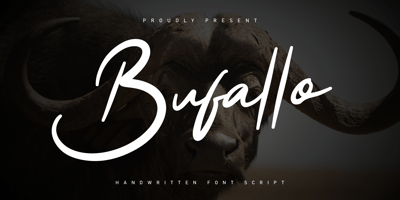
Bufallo
Bufallo font
Bufallo Font Family was designed by ryan creative and published by ryan creative. Bufallo contains 1 styles and family package options. Bufallo is a style of handwritten script with a simple hand stroke that makes this font look simple. It can be used for various purposes such as greeting cards, business designs, product designs, quotes etc.FEATURES;-Uppercase, Lowercase, Foreign Support, Numbers and Punctuation.-Works on PC.-Simple installation.-Accessible in Adobe Illustrator, Adobe Photoshop. Adobe InDesign, it even works in Microsoft Word.-Fully accessible without additional design software.Buffalo encoded with Unicode PUA, which allows full access to all additional characters without having to design special software. Mac users can use the Fontbook, and Windows users can use the Character map to view and copy any extra characters to paste into your favorite text editor/app.See you again 😉